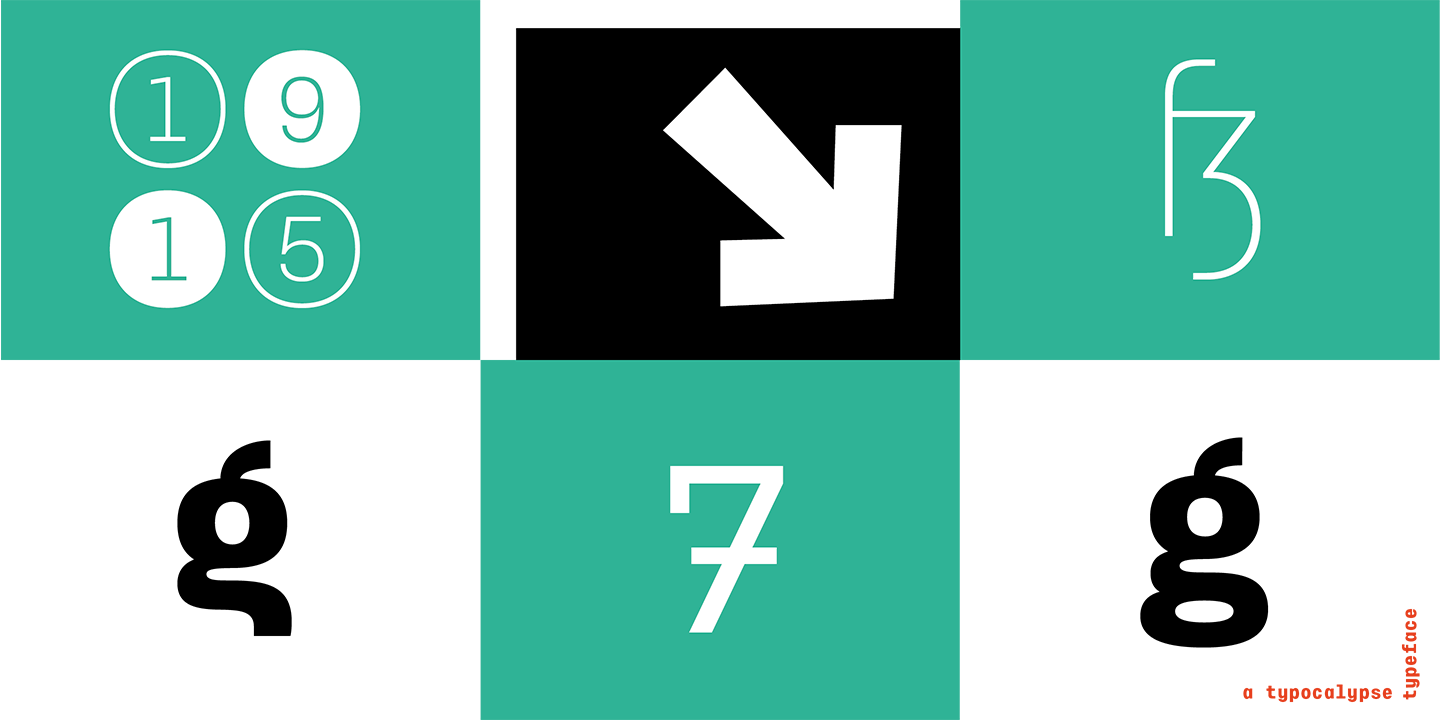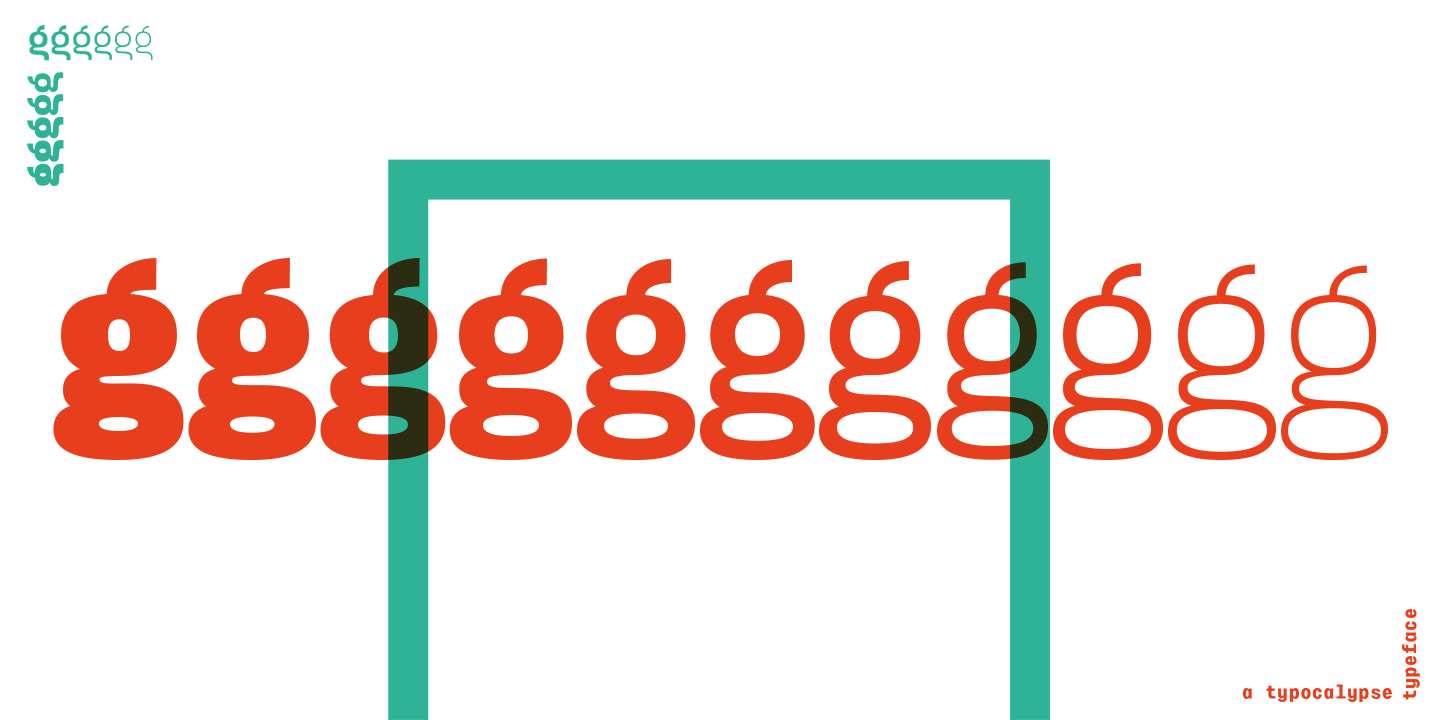
»Typewalk 1915« is a vintage and slightly quirky Grotesque branded by history. It is a homage to European sign painter and lettering traditions of the early 20th century. »Typewalk 1915« also speaks in the proto-rational and graphical language of the »Werkbund Objectivity« which was used around 1915. »Typewalk 1915« works great for cultural, editorial and branding purposes. Speaking with its unique voice, it is well-prepared and versatile for all sorts of web and print projects. »Typewalk 1915« has 11 distinct weights from thin to heavy in upright and italic. »Typewalk Mono 1915« is its fitting Monospaced Version.